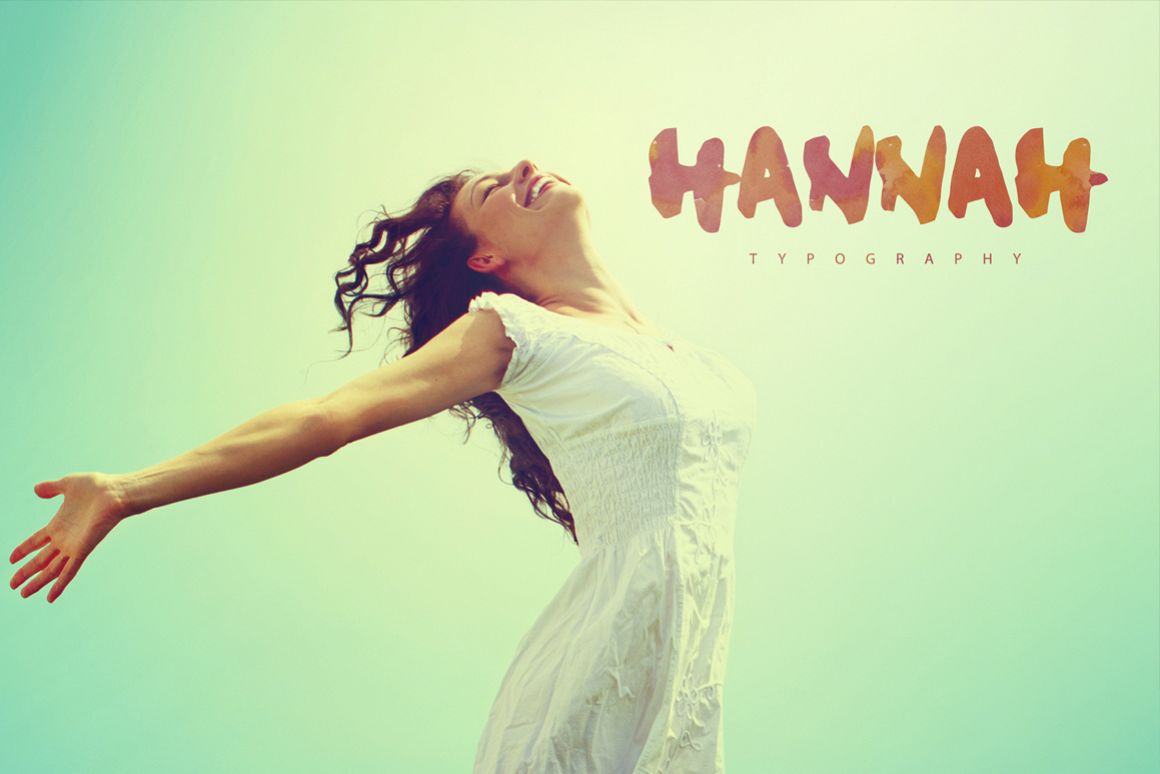
My name is Hannah
Hannah.
Hannah is a handmade brush font. It’s perfect for headlines on paper, paints or walls what you want a handmade effect. Lowercase and uppercase, numbers and webfont.